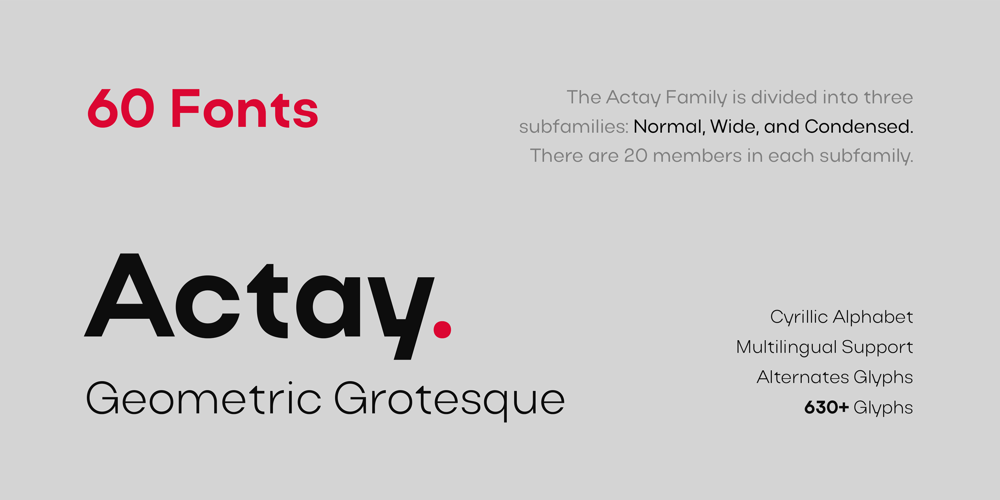
Actay Font Family was designed by Serdar Öztürk and published by Serdar Ozturk. Actay contains 60 styles and family package options. Actay Font is an elegant and remarkable family with its highly legible geometric lines. Crowded family members are divided into three separate groups: Normal, Condensed, and Wide. Each group has 20 weights.Actay Font also provides Cyrillic Alphabet support, providing unlimited possibilities in many languages and will not let you down.The fluent functionality of Actay is achieved with multiple OpenType features, such as case-sensitive forms, contextual and stylistic alternates. The standard numerals set encompasses tabular figures and symbols, superiors and inferiors, numerators and denominators, plus fractions.Thanks to its corporate structure, Actay can be shaped and used in accordance with many design trends.